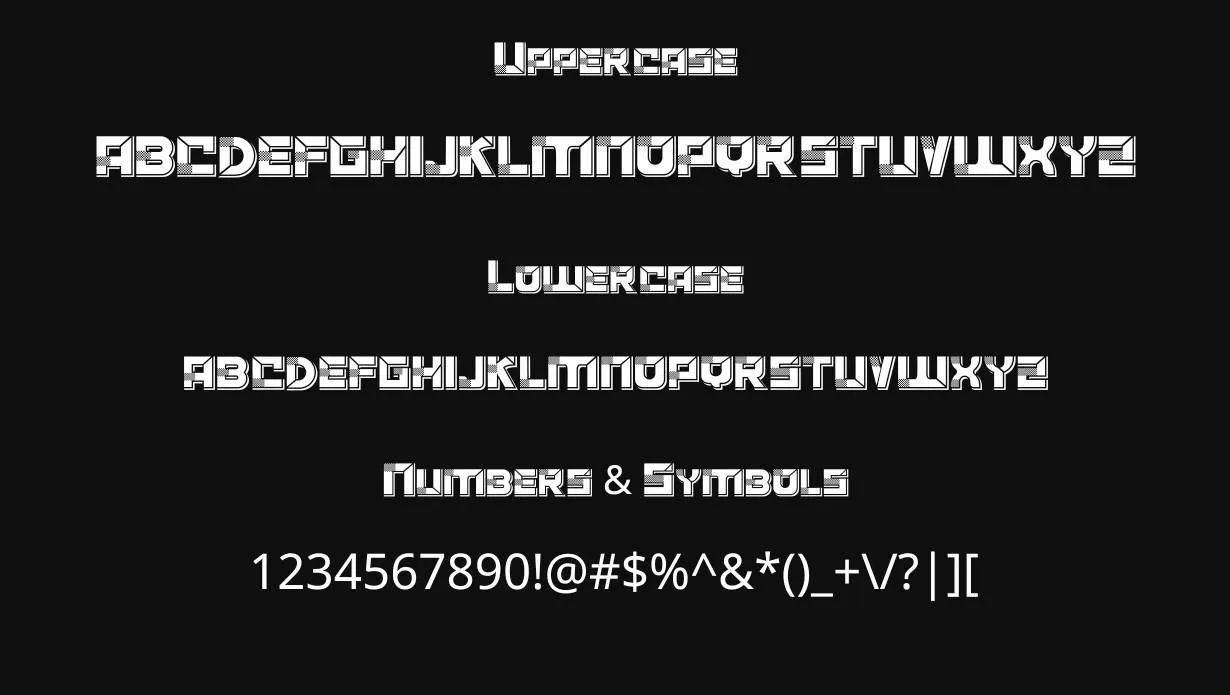
Accelerare Font has a strong and forward-thinking design, making it an excellent option for technology, sci-fi, and innovation projects.
Its sleek and modern letterforms add a sense of progress and advancement to your designs.
| Name | Accelerare Font |
| Designer | Edric Studio |
| Style | Techno |